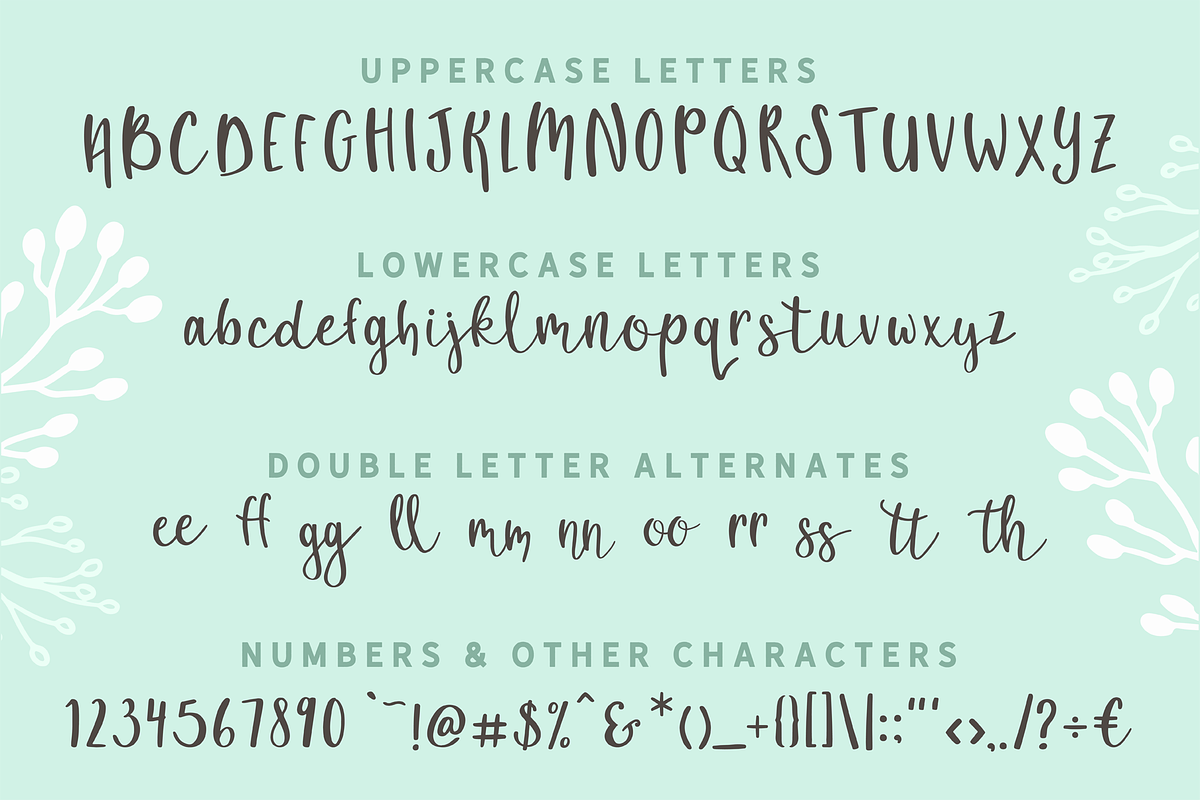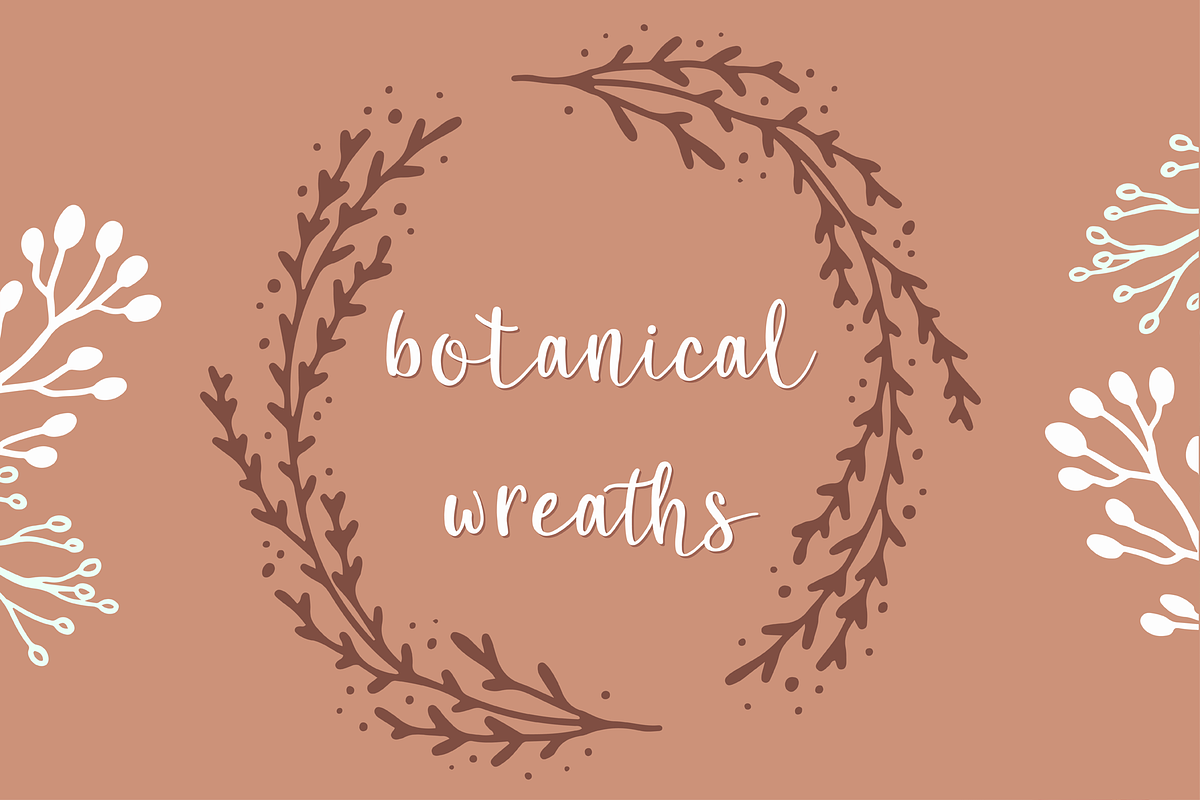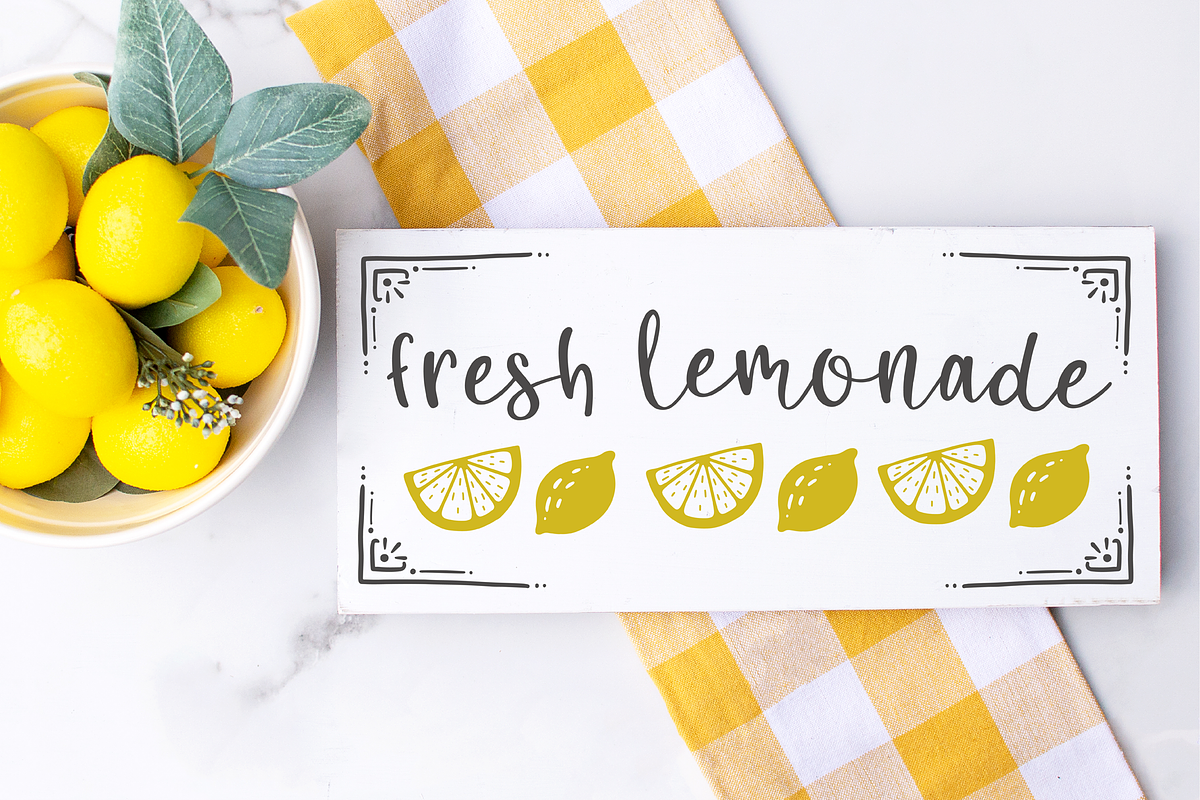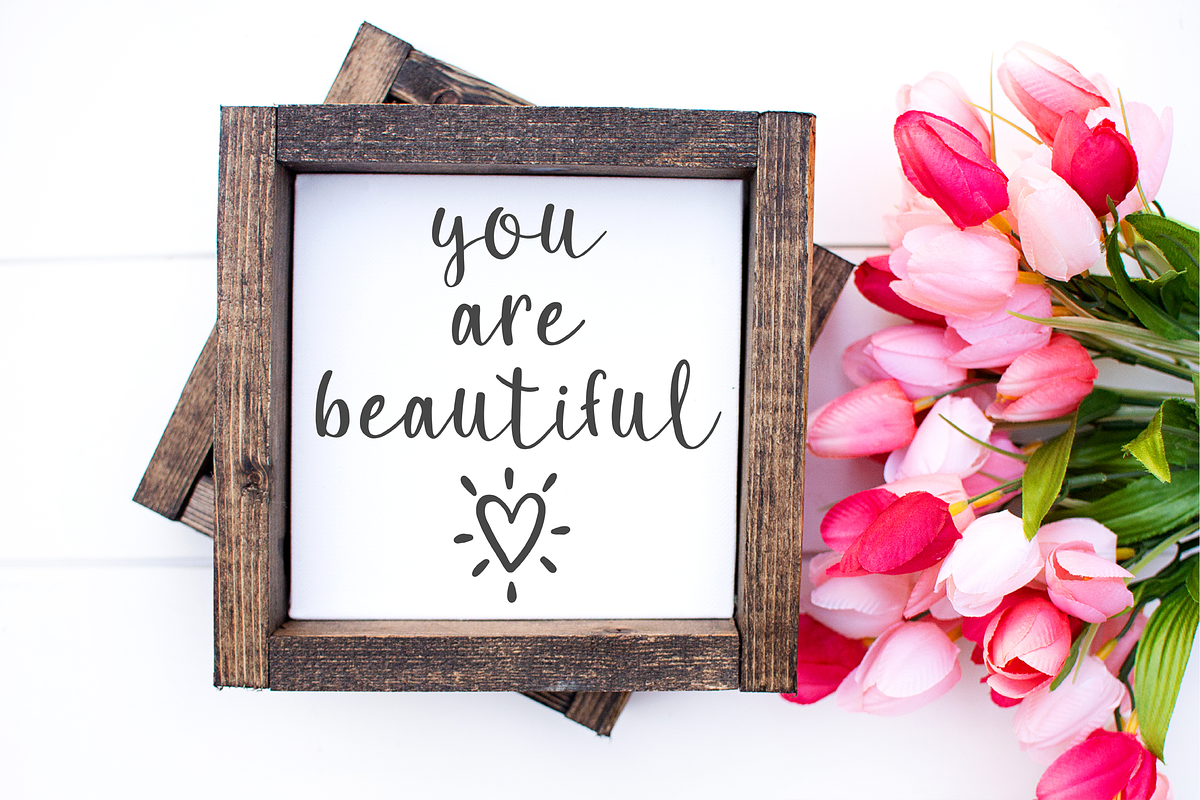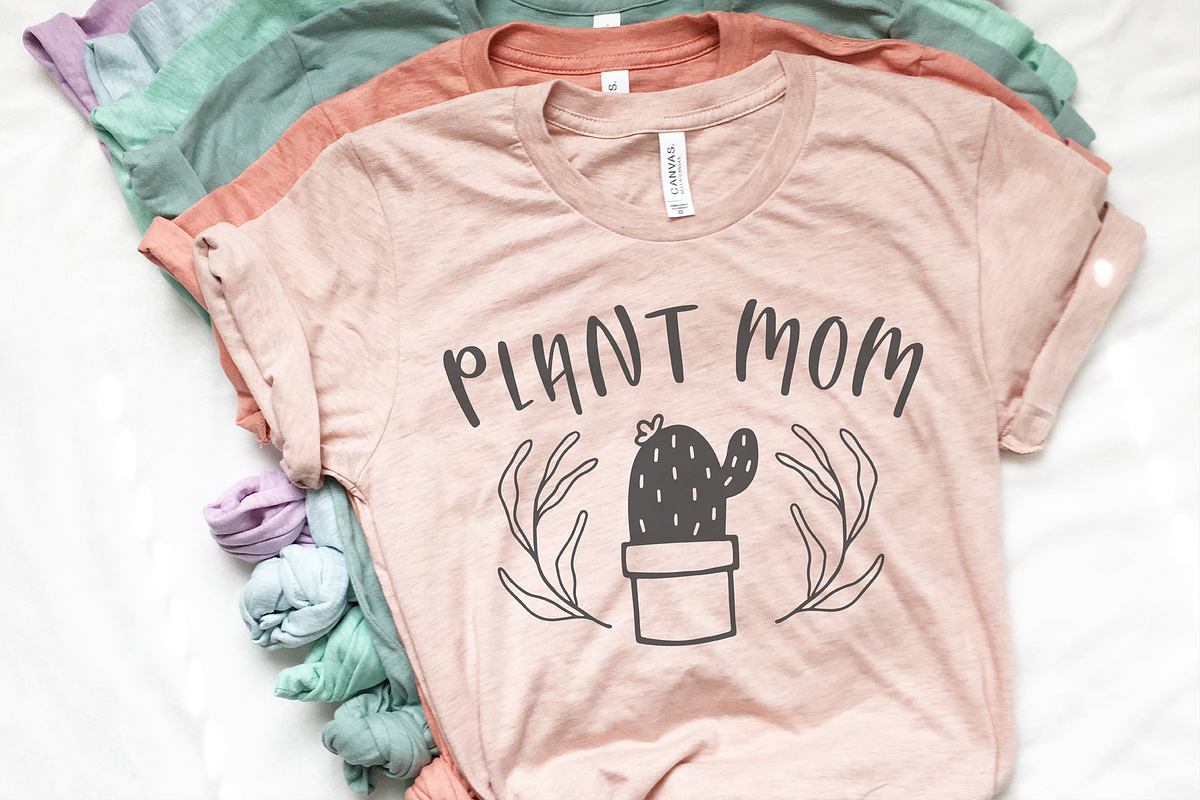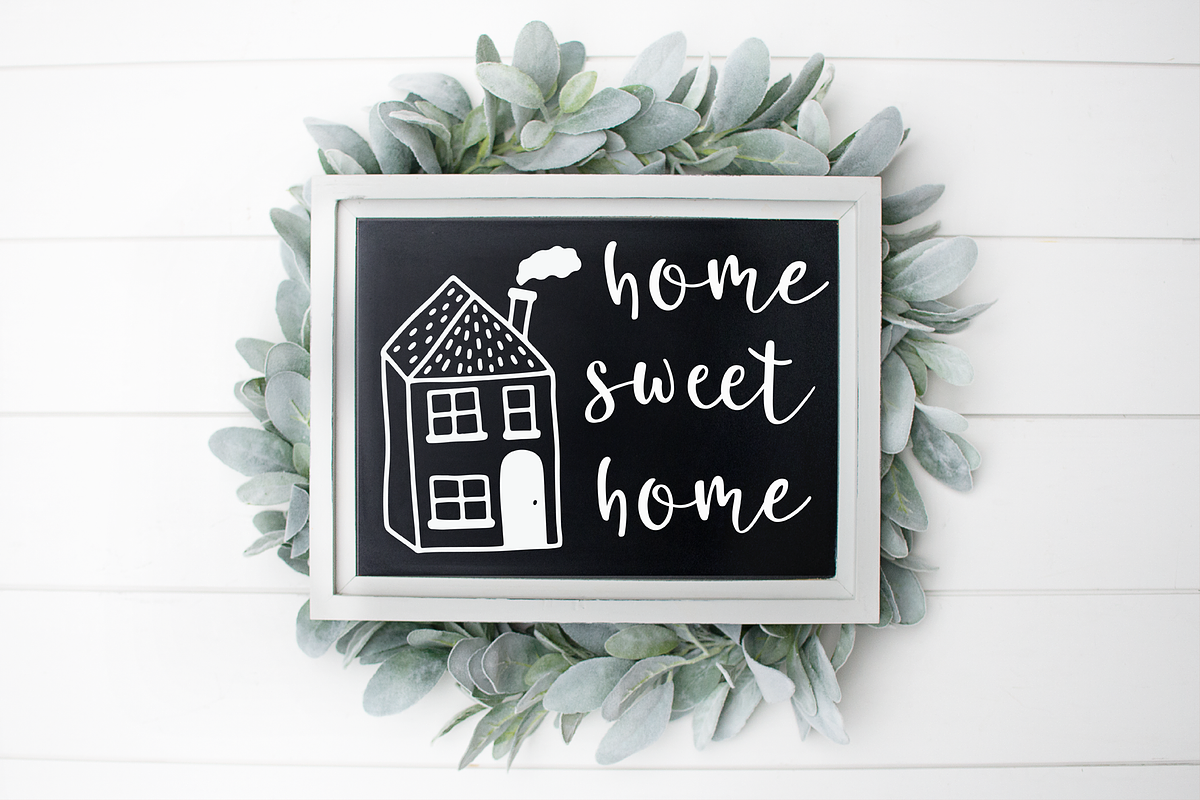
Glorious Morning: A Whimsical Font
Glorious Morning is a whimsically crafted script font. Each letter has its own version of spice, and once you string a few words together, you'll really feel some creative energy from this alphabet! The uppercase letters are print, and the lowercase letters are script, which makes it incredibly unique. It almost feels like there are two fonts magically and flawlessly merged into one!
-This font incorporates alternate double ligatures that automatically flow into your writing.
Express the whimsical, adventurous artist within you with this beautiful font! My hope is that you will absolutely love this font, and all of the creative opportunities that come with the hand drawn elements!
- The uppercase letters are print, and the lowercase letters are script, which makes it incredibly unique.